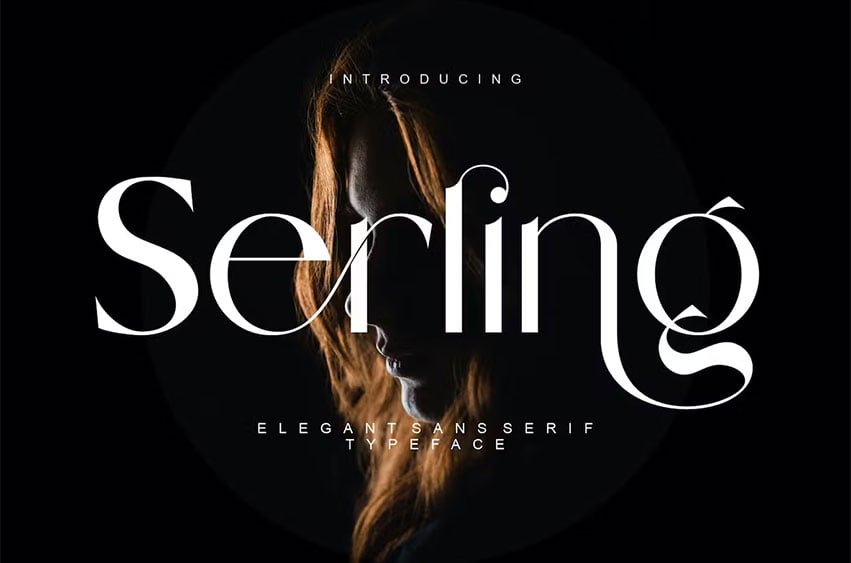
Serling Font Elegant Sans Serif Typeface with simple, clean, and visual elegance. Specially designed for elegant-themed projects, perfectly suitable for creating simple, clean, lifestyle design such as logos, title, and magazine and more.